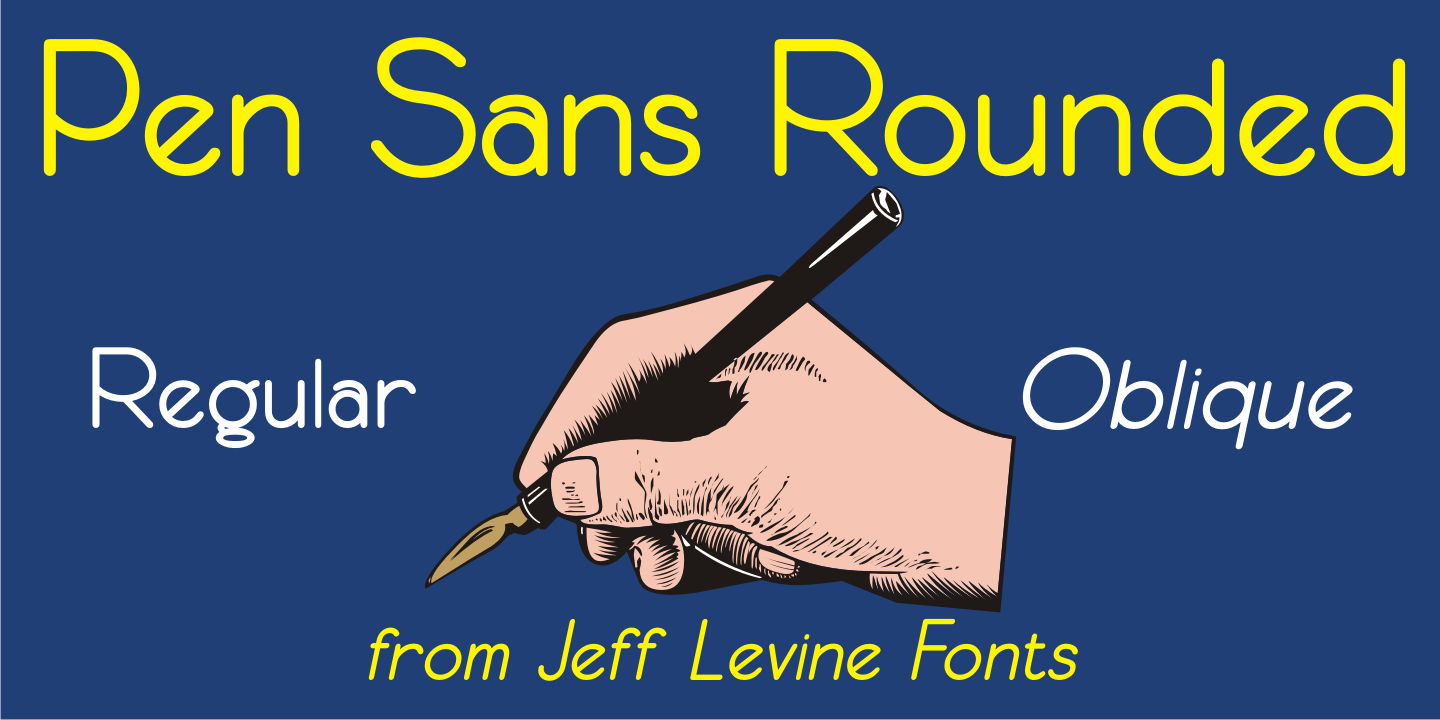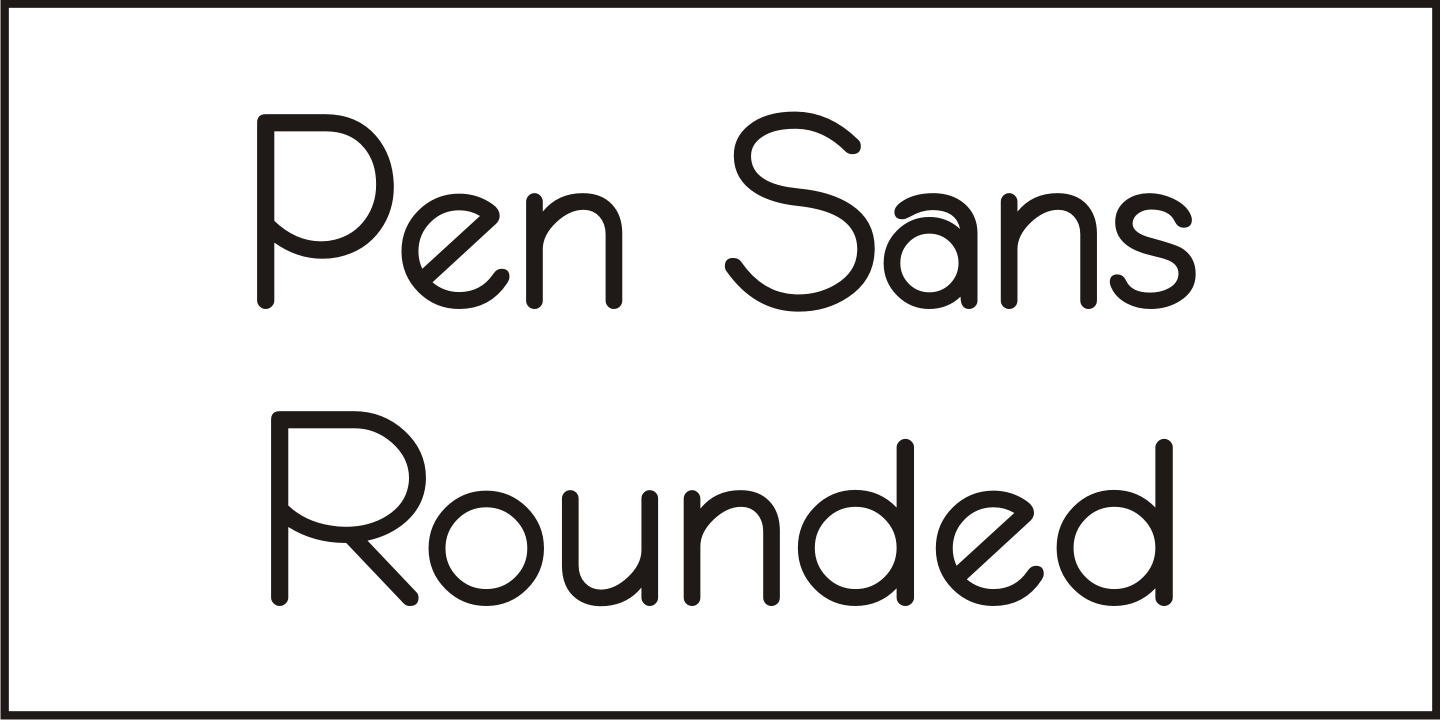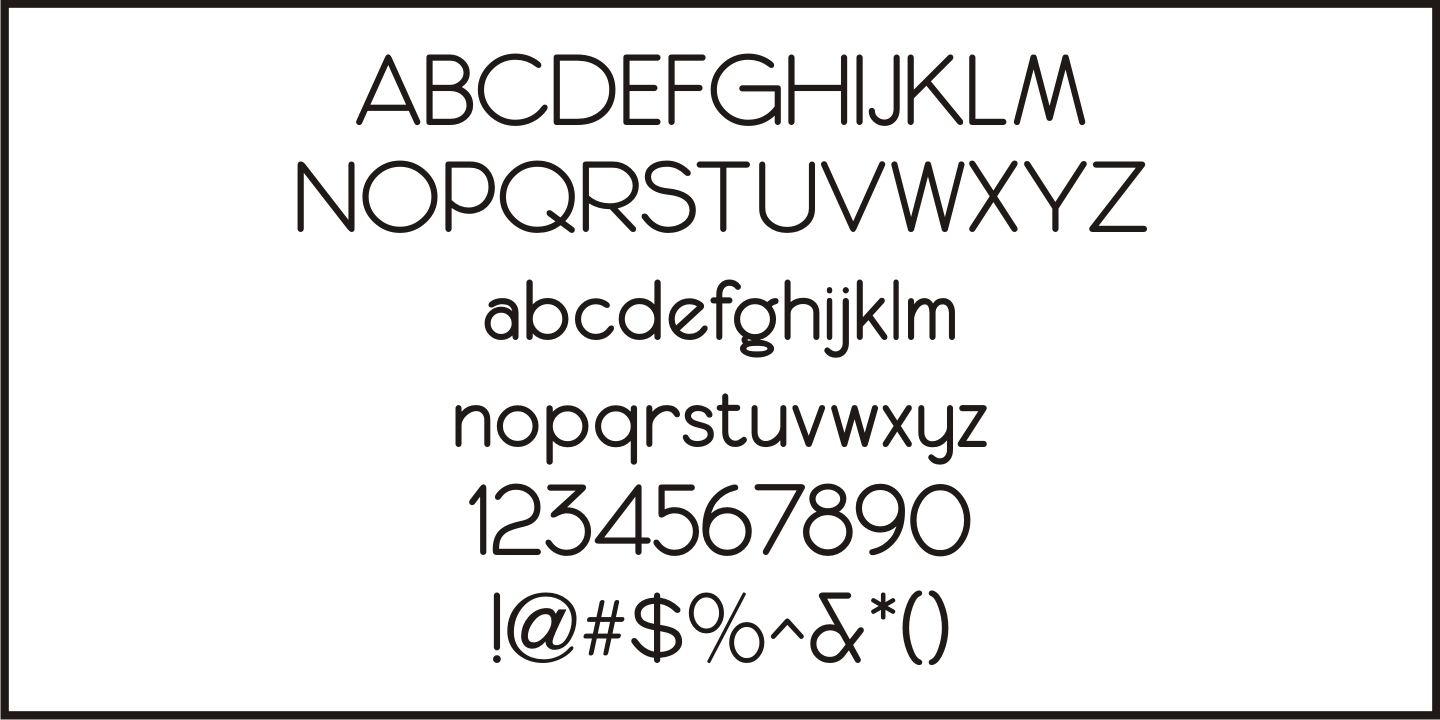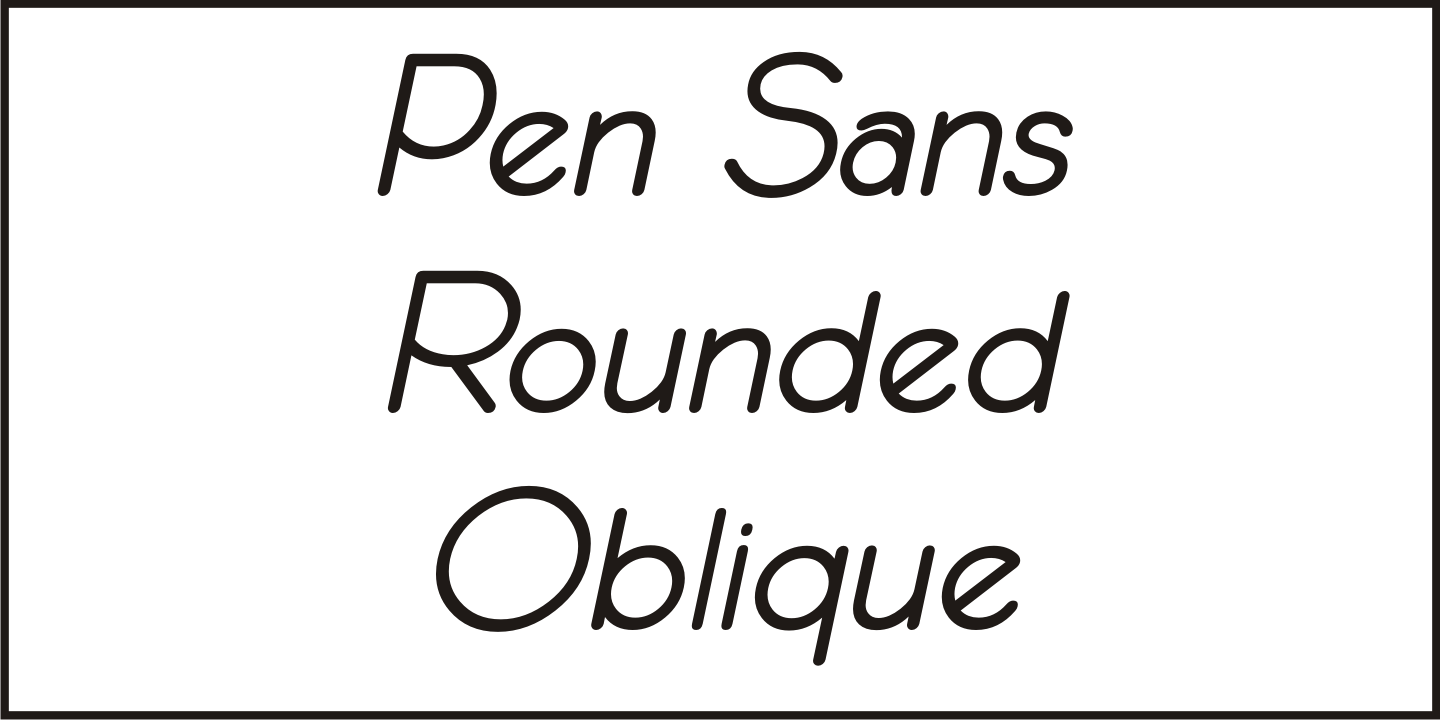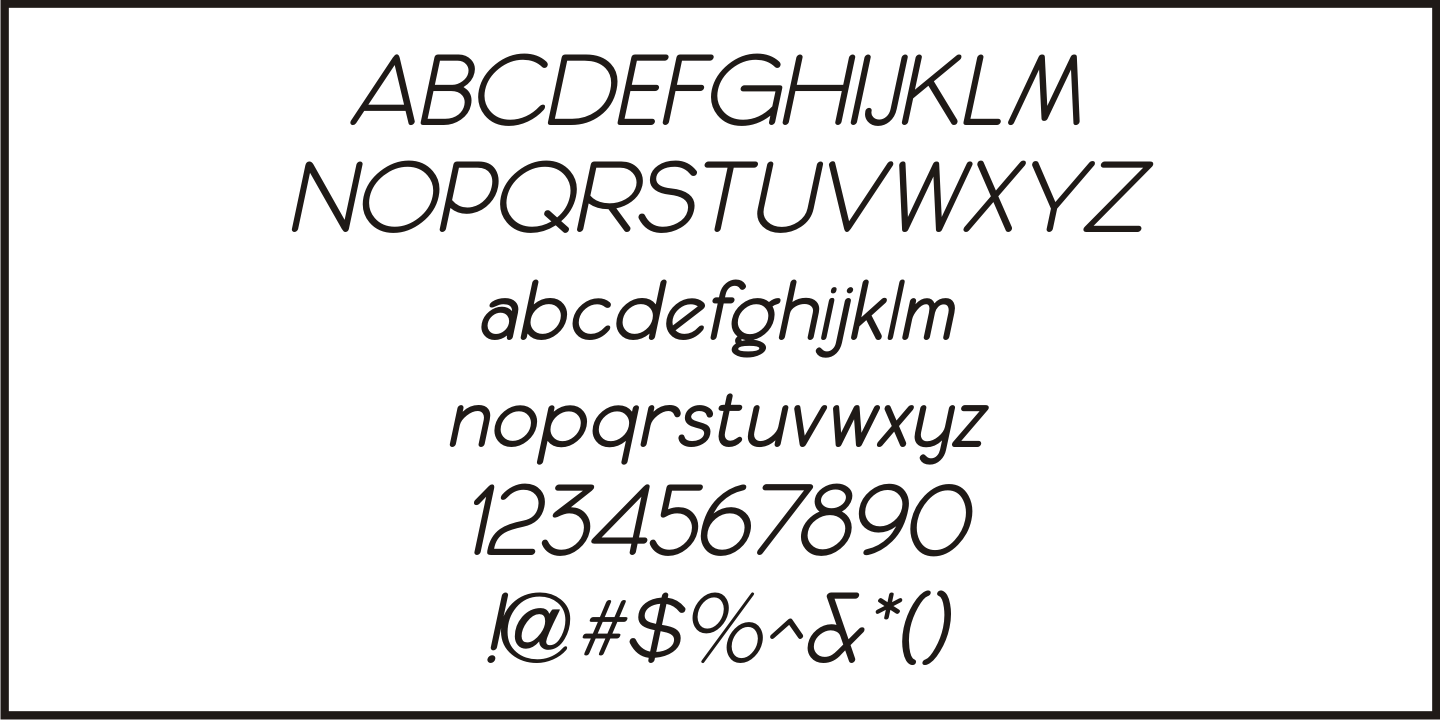
Pen Sans Rounded
Many alphabet style examples from the Speedball Textbook on pen lettering have offered amateurs and professionals a source of inspiration since its first publication in 1915.
A 1940s edition presented a simple sans serif design rendered with the style 'B' round nib pen point, and has been recreated as the digital type face Pen Sans Rounded JNL, which is available in both regular and oblique versions.
Pen Sans Rounded by Jeff Levine Fonts